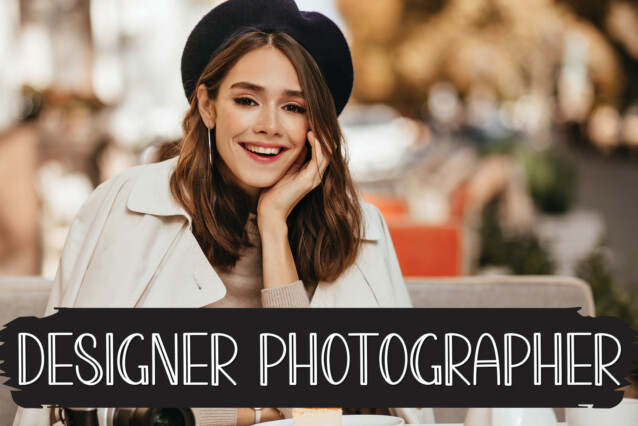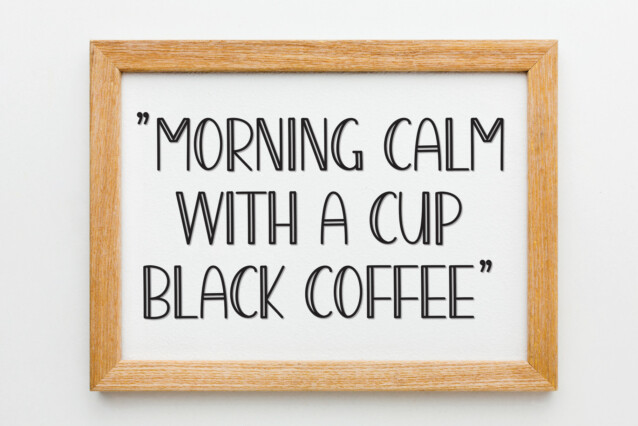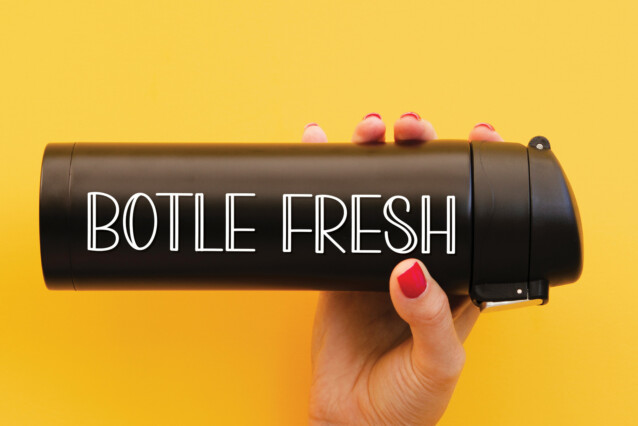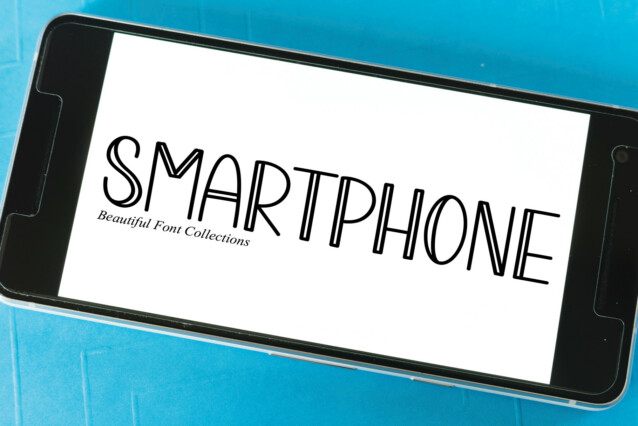
Launching Product Script Font
Launching Product Script Font is a creative and modern handwritten font. This lovely display typeface is perfect for invitations, cards, logos, branding, advertisements, product packaging, product designs, labels, photography, watermarks, and more.